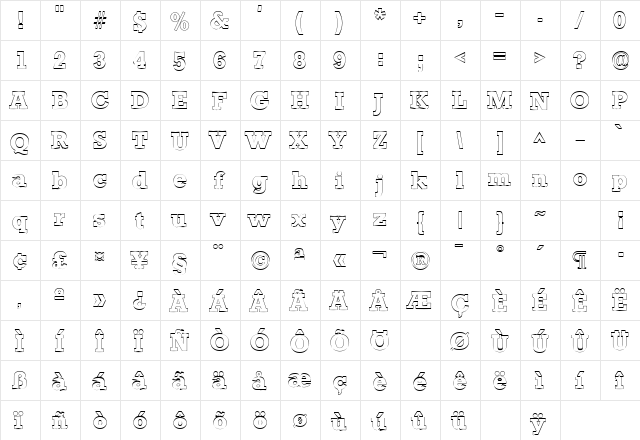
StaffordOutline Regular
Design Context for StaffordOutline Typeface
StaffordOutline brings ornamental detail and strong personality to headlines and identities, where visual impact matters more than quiet functionality.
Font Pairing: Pair with a clean neutral sans-serif for body copy to let StaffordOutline's character lead without overwhelming the composition.
Pro Tip: Treat StaffordOutline as the centrepiece of your typographic hierarchy. One strong heading set in a decorative face can carry an entire layout.